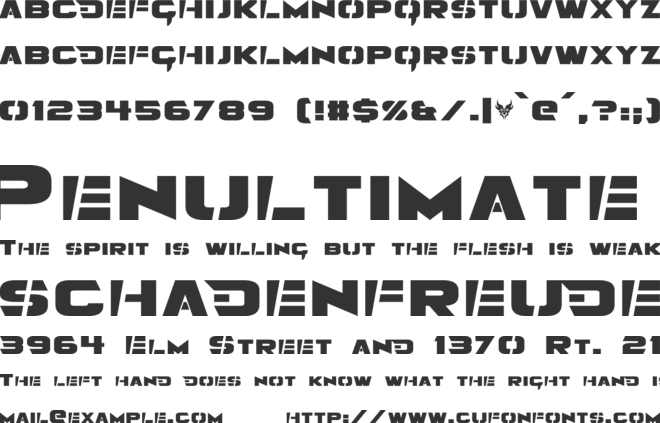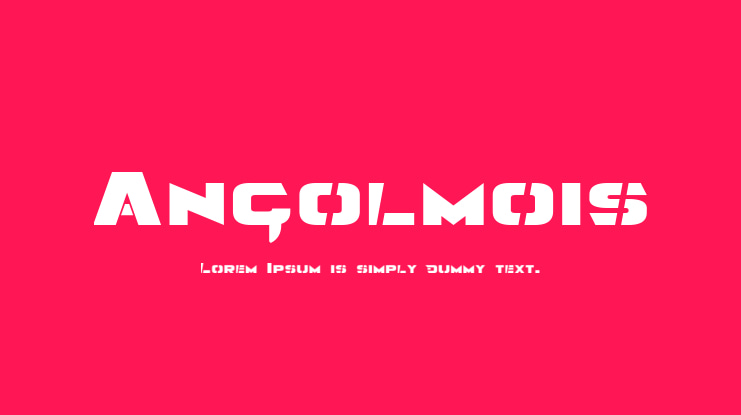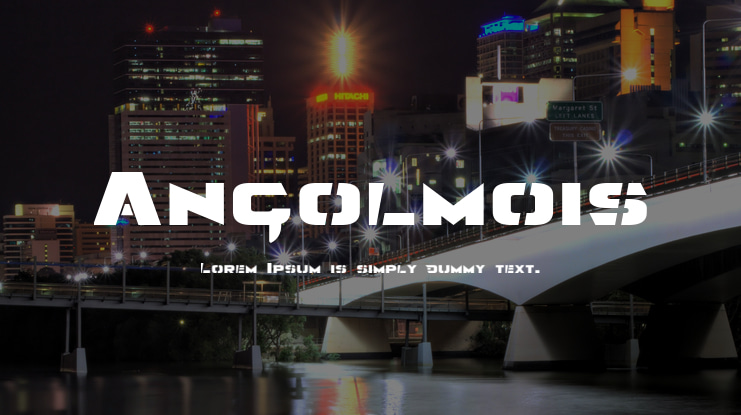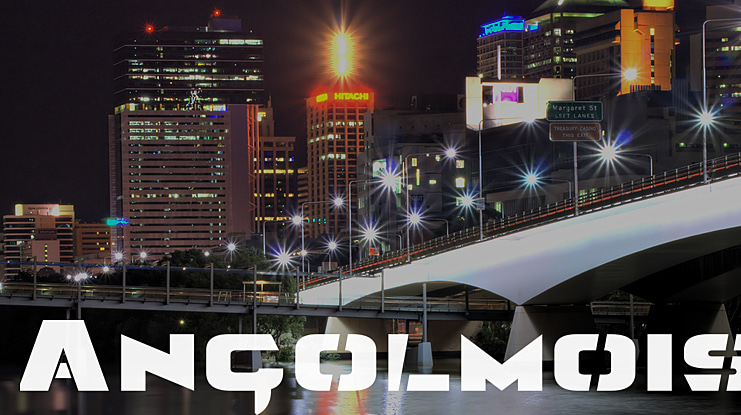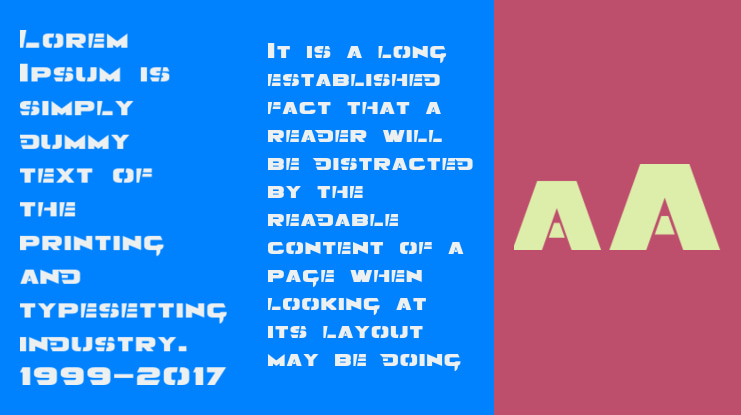
Angolmois Font Family
Neale Davidson
Angolmois is a tattered, eroded “stencil” face based on the “Dark Energon” logo for the Big Bad Toy Store exclusive line of Hasbro’s Transformers. Includes full alphabet, extended punctuation, and Euro. Includes regular and italic versions.